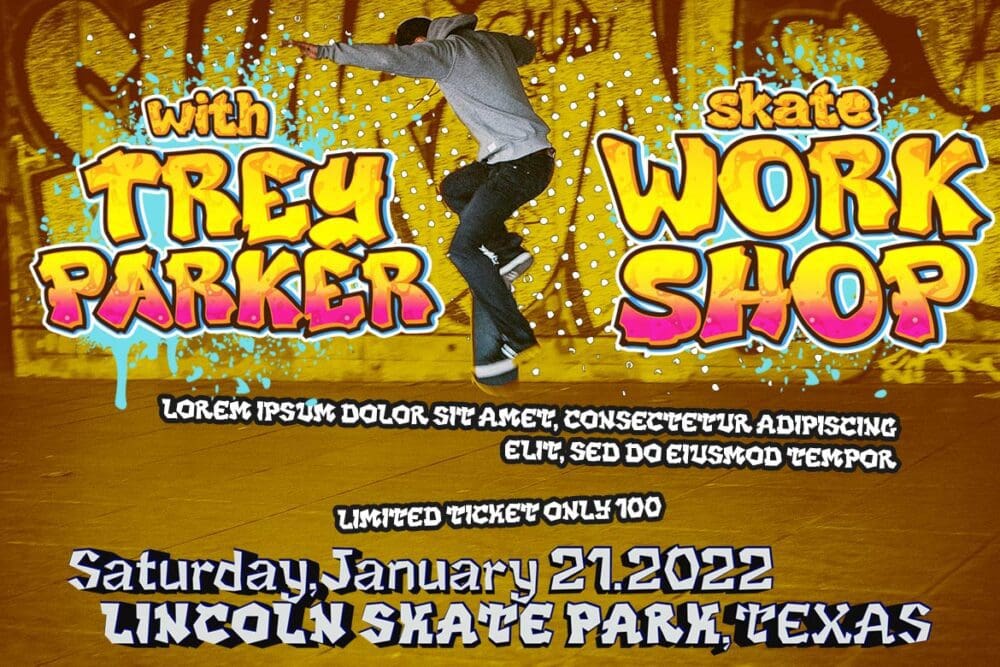
Dark Light Font
DARK LIGHT is a graffiti-style Display Font with individuality in each letter. Use this font to create a unique style that will pique the interest of many people. Not only that, but your project will look more attractive and natural if you use it.